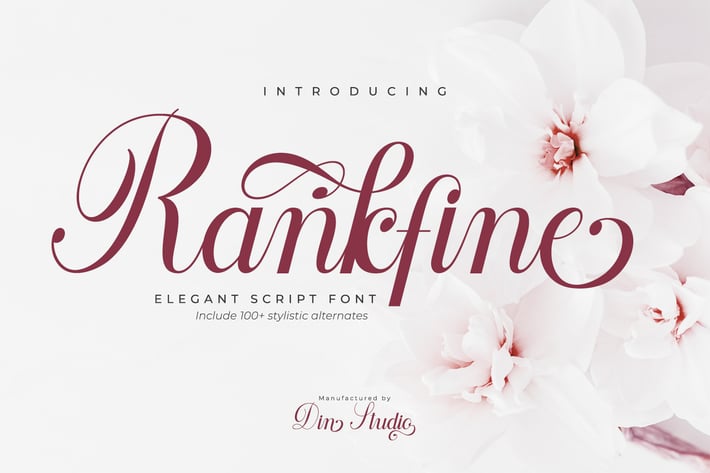
Rankfine-Elegant Calligraphy Font
Rankfine is a elegant calligraphy with natural and handwritten style. It brings a modern and attractive typeface. Made for any professional project branding. It is the best for logos, branding, wedding and quotes.
- Stylistic Set
- Beautiful Ligatures
- Numerals and Punctuation